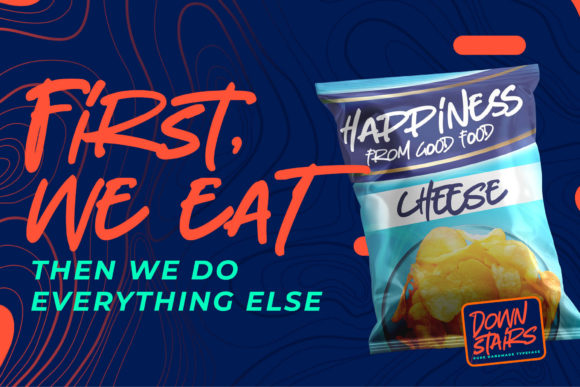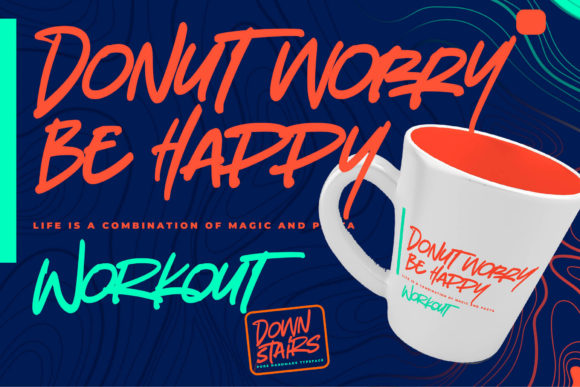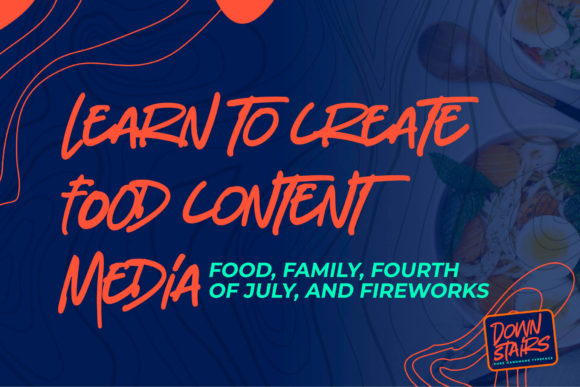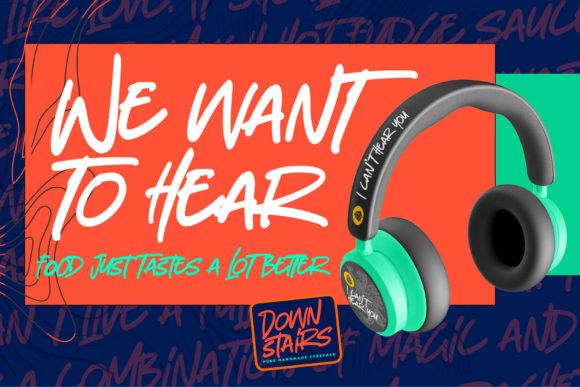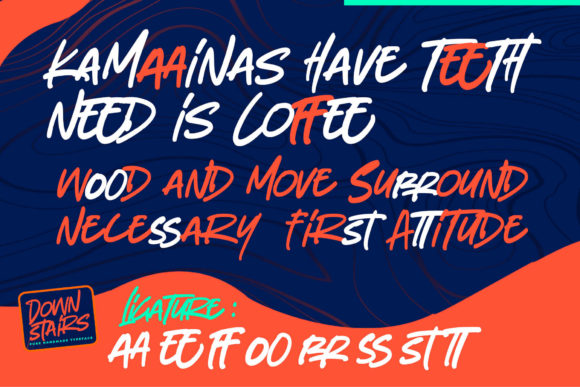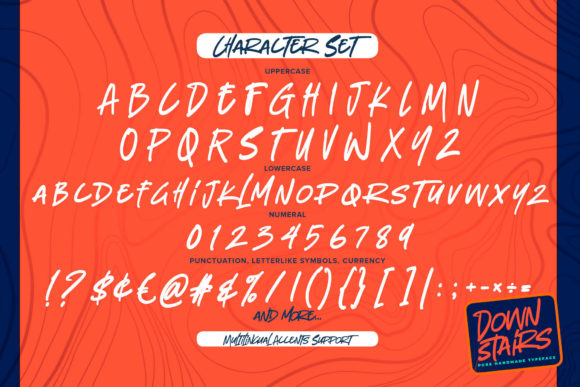
Creating Authentic Typography with the Downstairs Font
Have you ever been brainstorming a new project, flipping through design inspiration boards, and suddenly, you stumble upon the perfect font? It’s that moment when everything clicks – the colors, the textures, and the typography all come together to create something truly special. For designers, finding that elusive font can be a game-changer.
One such font that has been making waves in the design community is the Downstairs Font – a cool and natural-looking handwritten font that exudes bold and authentic typography. Whether you’re working on a banner, logo, product packaging, or marketing materials, Downstairs Font is the perfect companion to bring your designs to life. Its versatility and unique charm make it a valuable asset for any designer looking to add a touch of personality to their work.
Downstairs Font Key Features
- Unique Characteristics: Downstairs Font features a unique, distressed design with subtle texture and imperfections, giving it a vintage, handmade feel.
- Font Style: The font comes in Regular and Bold weights, providing options for emphasis and contrast in typography.
Downstairs Font Review
Overall, I think the Downstairs Font is a great addition to any design project. Here are some of its strengths:
- ✨ Unique and playful style that adds a touch of sophistication to digital and print media.
- ✨ Large x-height and wide letter spacing make it easily readable, even at small font sizes.
- ✨ Supports a wide range of languages, including Latin, Cyrillic, and Greek alphabets.
- ⚠️ The font may not be ideal for body text, as it can be quite ornate and distracting.
- ⚠️ Limited font weights and styles may limit its versatility in certain design contexts.
- ⚠️ May require additional styling to achieve optimal legibility at very small font sizes.
Overall, I think the Downstairs Font is a great choice for designs where a unique and playful touch is desired. While it may not be suitable for all design projects, it’s a great addition to any font library. With some careful styling, it can add a touch of sophistication and whimsy to your designs.
Tips for Getting the Most Out of “Downstairs Font”
For the best results, use “Downstairs Font” for headings and titles, as it is a bold and eye-catching font. It is also suitable for use in logos, posters, and other promotional materials. Experiment with different font sizes and colors to create a unique and visually appealing design.
“Downstairs Font” is commonly used in the following scenarios:
– Creating bold and eye-catching headings and titles.
– Designing logos and brand identities.
– Creating posters and promotional materials.